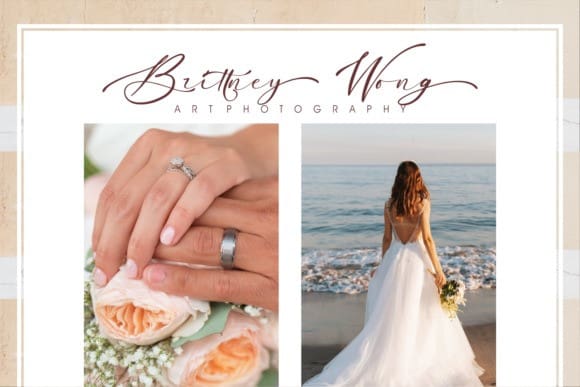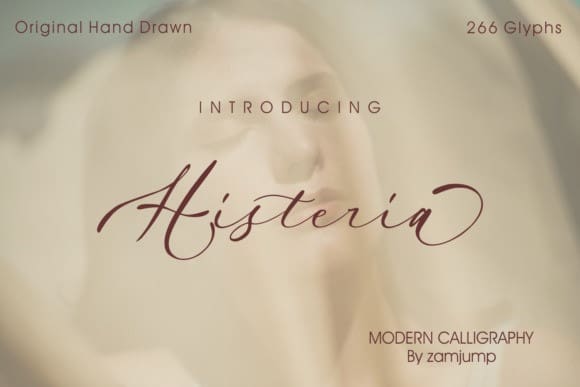
Histeria Font
Histeria Font is a fashionable and delicate script font. It will add a luxury spark to any design project that you wish to create! This font is PUA encoded which means you can access all of the amazing glyphs and ligatures with ease!